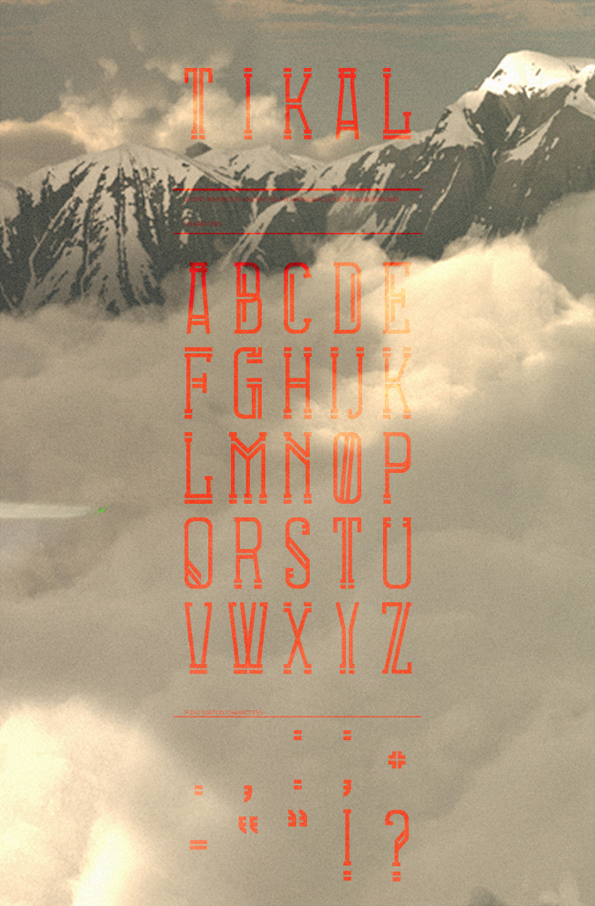
Richard de Ruijter's Tikal font
Fresh typography inspired by ancient South American cultures
Inspired by Inca, Mayan and Aztec cultures, Netherlands-based graphic designer Richard de Ruijter has created a stunning new typeface: Tikal.
"A friend of mine recently took a trip to Brazil and took a bunch of really cool photos there," he recalls. "I proposed that we make a little magazine as a collaborative project. I wanted to do a custom font that had apparent Inca/Mayan roots, but with a blend of modern sleek design."
De Ruijter began by sketching the fonts by hand to get the basic look and feel across, before tweaking them digitally. "It's a lot of playing around, building up and breaking down the fonts," he continues. "It took a day or two to get the thickness right."
Working in the evenings outside of his day job, the entire process took about 15-20 hours. "I love the feel of the type: it's mysterious, and each character works really well in combination with its brother and sister characters," he grins. "I had a few moments when I wanted to give up, but I'm glad I didn't."